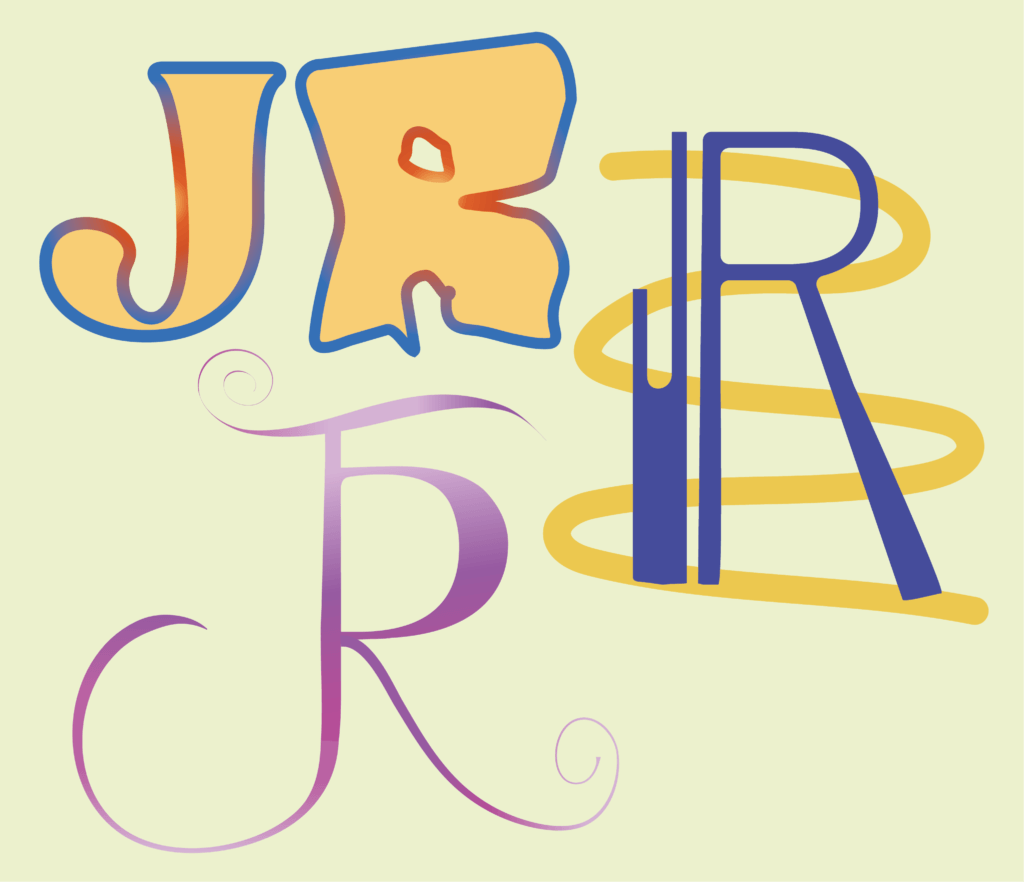
Design Ideas and Process
Logos are something that helps users identify the brand’s or the individual’s identity, therefore, it is essential for it to be effective and reflective of the brand/individual. Through this task, I was able to create letter logos using my initials and thus, apply perhaps my interests as I took inspirations from my hobbies and interests to express myself through logos.
Firstly, I started off by looking at Behance for inspiration and made a moodboard containing all the designs I liked. Then I took screenshots of the typefaces used in those designs and used the adobe font visual search to find out the possible typefaces that has been used to give myself possible ideas for my own designs. Using these as inspirations, I drew up sketches for how I wanted my logos to look like, nothing down typefaces I would like to use as well as creating a colour palette I thought would best suit for these typefaces.
Design 1
For my first design, I wanted to try a retro theme for the logo, so I chose bright and vibrant colours for them. I combined the typefaces ‘Chuck’ and ‘Bright’, which I downloaded from the website dafont.com. Typing up my initials (01), I explored how I would use my colour palette on the text, whether by using a gradient or contrasting fill and stroke colours (02). I messed around with the angles of the gradient but essentially settled in with a warm yellow as the fill and a gradient of reds and blue as my stroke colour (03). After this, I transformed the text into outlines (04) and experimented with the outlines of the letters to sort of create a graffiti effect on the text (05). I used the smooth tool to make the outlines look more rounded and smoother (06). I followed the same steps for my first name initial (07), but wasn’t quite satisfied with the results, therefore, I used the typeface ‘Bright’. I continued to follow the same steps I did for my other initial (08). I wanted to create a background for my logo, so I used the brush tool to ‘paint’ a background (09), but eventually scrapped the idea as it didn’t look nice in my opinion. I also tried warping the text but didn’t like the results of the finished outcomes (10 &11). Therefore, I decided to keep my logo with just the manipulated letters. Eventually, I got rid of the manipulation of my first initial to create contrast between the two letters.
Design 2
For the second design, I combined the typefaces ‘Interstate’ and ‘Rama Gothic C’. Using my colour palette, I added colour to the text using the eyedropper tool. Then, I created the text into outlines (03) and using the direct selection tool, I dragged the bottom of the letters using the anchors in the vectors of the letters (04). Once I was satisfied with it, I used the pencil tool (05) to draw a swirl around the letter logo and increased the stroke and added a contrasting colour to it. I smoothed out the curves using the smooth tool (06). Then, I used the arrange option to keep the swirl behind the letter logo (07,08 & 09).
Design 3
For the third and final design, I wanted to create something a bit more elegant looking. Therefore, for my colour palette, I used different shades of pink and for the typeface, I used ‘Kepler Std’. I found that it is difficult to directly add a gradient to text and therefore, I got rid of the fill and stroke first (02) and then using the appearance tools, added a new fill, which allowed me to use a gradient as the fill of the text (03 & 04). Next, I looked at the glyphs that this typeface provided and took note of some of the tails of other letters for references. Then I created outlines of the text (05) and using the eraser tool (07), got rid of parts of the letters I didn’t need and tried to combine the tails of the other letters to my initial letters logo (06) , but it wasn’t going exactly how I wanted. Because of this, I challenged myself and decided to draw the tails and ascenders of the letters myself using the pencil tool (08, 10 & 13). After drawing them, I used the smooth tool to smooth out the wonky lines. Then, using the width tool, I adjusted the width of the strokes and tried my best to make it look optically balanced (11). Then, using the gradient tool, I changed the direction of the gradient starting point to blend it with the edges of the letter I drew the first point from. I did some finishing touches by decreasing the width of the stem of the letter ‘J’ and grouped the whole design together.
Software Tutorials
From the tutorials provided, I learnt how to modify letterforms by creating outlines of them. Since I am fairly still very new to Illustrator, these tutorials helped me a lot doing the basic steps of creating monograms. Converting the letters into outlines was helpful as it allowed me to easily and quickly manipulate letters however I wanted, which I believe I would struggle with if I hadn’t known and would resort to using the anchor tool, which would result in me having to figure out the anchor points of the letter and would be difficult to use and also create inaccuracy. I also learnt how to use the envelope distort tool this was a very cool tool to learn about as I got to know another fun way to warp my text using any shapes, which would be helpful in future projects. Watching these tutorials, I further want to develop my overall design skills in Illustrator as it is a software I am interested in.
For my third design, I wanted to have a gradient as the fill colour for my initials and quickly learnt that Illustrator doesn’t allow gradients for that, so I found this tutorial on YouTube on how to achieve this effect and was able to use it in my design. This tutorial was short and straight to the point, which helped me grasp the skills quickly and apply it on my own. Using the appearance tool was the main element in achieving this effect as in order to do this effect, you would have to get rid of the fill and stroke colour of the text, and using the appearance tool, you would be able to add a new fill or stroke colour, and when doing so, choosing the gradient tool, applies the gradient you choose. This helped me give a seamless gradient without any harsh outlines around the edges of the letters.
Another tutorial I watched on YouTube was on manipulating and customising typography. This tutorial introduced me to the width tool and the pencil tool, which helped me add some flair to my design and I also got to learn how to open up the glyph tool to look at other variations of the typeface and use them in my design. I was particularly fascinated with the width tool as I really loved the fact how easy it was to change the width of a single stroke within varying points of the line/stroke.
Design Resources and Articles
The first two illustrations from Behance were the inspirations for my first design and the colour palette. I really liked the aesthetics of these illustrations as these have a very fun feel to them and therefore, I tried to create something similar to it in my own designs. The third and fourth designs were inspirations for my second design. I replicated the swirl from the third design, which i really liked and wanted to include in my own design. In terms of the typography, I tried to blend both styles and merged them into one in my own design. The fifth typography design was the inspiration for my third and final design. I really liked the manipulation of the typography in that design and was something I have never done before, so i decided to try it out myself. I chose all of these designs as inspirations as each of them used techniques and tools I have never used before and therefore, saw this as a way to move out of my comfort zone and try out and improve my skills. I hope to improve on these new found skills in future projects.
Learning Across the Module
In terms of using design softwares appropriately, I believe I have improved and learnt which software is suitable to use for a specific task. Through this module, I was able to learn certain facts in terms of printing, which I wasn’t aware of previously and it has helped me in understanding the softwares. I most definitely have grown more confident in using the softwares as compared to at the beginning of the module, when I was new to everything. In terms of design skills, I believe I have improved in using Photoshop and Illustrator specifically. I was able to improve my Illustrator skills through this module and learn new tools within the software. I believe I feel more flexible using Photoshop. Through Illustrator, I was able to improve my typography and drawing skills, in terms of drawing vectors and creating bezier curves.
Then I opened illustrator and made a list of how the possible typefaces look like in different weights and then chose ones that I liked and were closest to my designs.